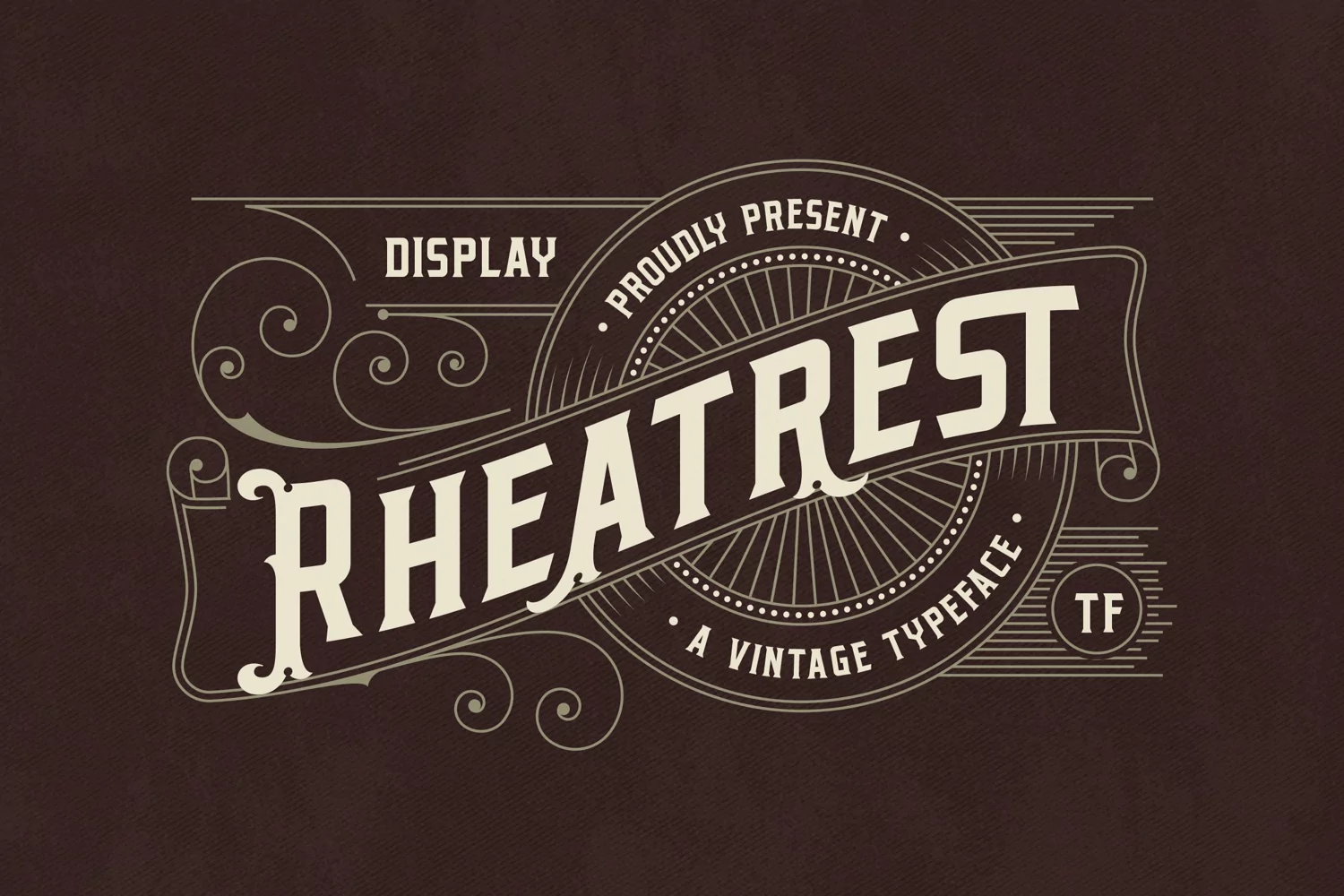
Rheatrest - A Vintage Typeface
Rheatrest is a vintage display font.
It can be used for various purposes such as logos, headings, coffee shop, vintage restaurant, letterhead, signage, labels, news, posters, badges and so much more.